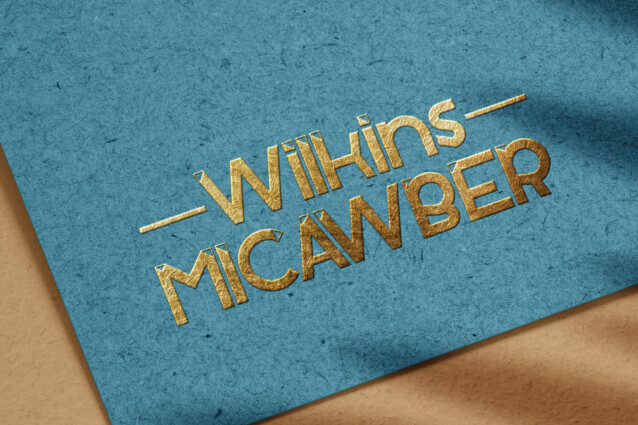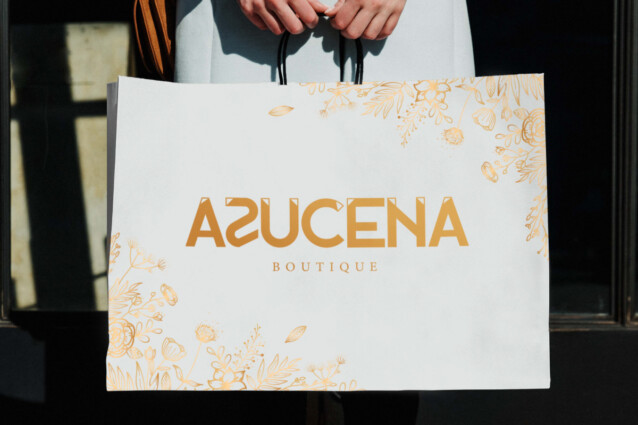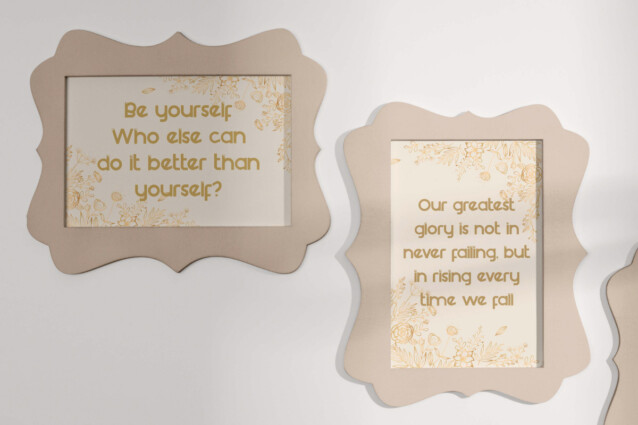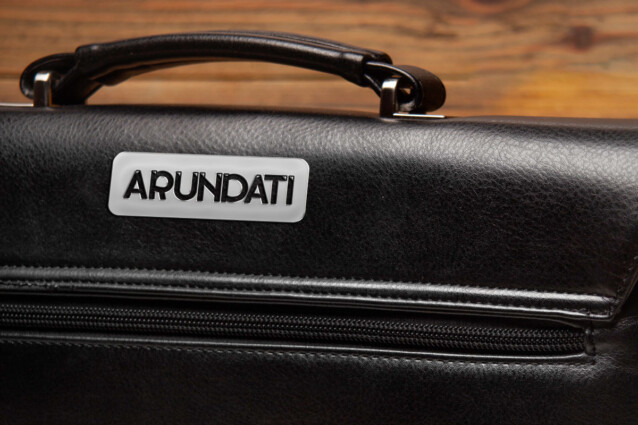
Golden Rose Font
Golden Rose Font is a stylish sans serif display font with luxurious theme. You can find a small triangular shape in the corner of each uppercase letter, as well as some lowercase letters! It will be good for any designs, such as brand image, cover, custom design, greeting card, invitation, label, poster, product packaging, quote, signage, web, and more!